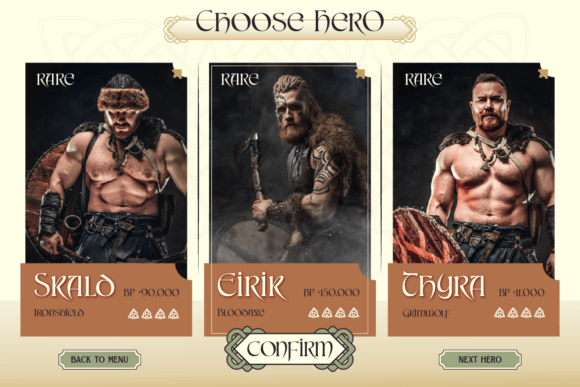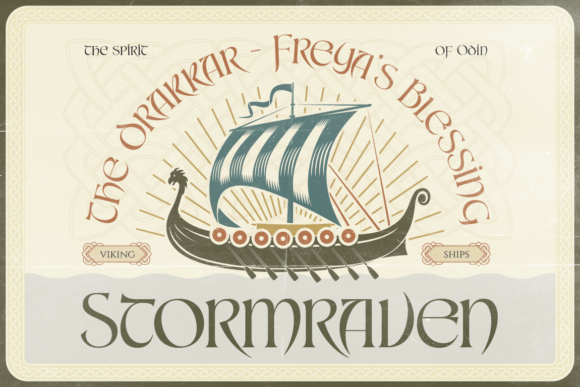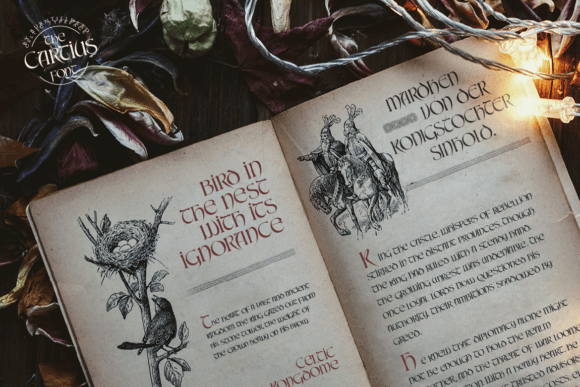
Unleashing the Fierce Elegance of Ancient Norse Culture: A Deep Dive into Cartius Font
I’ll never forget the design moment that led me to discover Cartius Font. I was working on a project that required a unique and timeless look, with a hint of historical elegance and a touch of Viking spirit. I had spent hours scouring the internet for the perfect font, but nothing seemed to fit the bill. That was until I stumbled upon Cartius Font, and it instantly transported me to the world of ancient Norse culture and traditional Celtic art.
The Birth of a Legendary Font
Cartius Font is inspired by ancient manuscripts, sacred text, and traditional Celtic art. The style emerged around the 6th to 7th centuries, and inhabited regions like Ireland, Scotland, and Britain. This font is a proud representation of the fierce elegance of ancient Norse culture, with bold, intricate strokes that echo the strength of Viking tradition.
A Personal Review of Cartius Font
So, what do I love about Cartius Font? Here are a few things that make it stand out:
- ✨ Elegant and refined design: Cartius Font boasts a unique and captivating style that adds a touch of historical elegance to any project.
- ✅ Highly versatile: This font is perfect for a wide range of projects, from medieval designs to fantasy themes.
- 🔥 Instantly recognizable: Cartius Font has a distinct style that instantly conveys the spirit of the Celtic world.
Of course, no font is perfect, and Cartius Font has a few small quirks:
- 🤔 Limited use of lowercase letters: Cartius Font is primarily designed for use with uppercase letters, which may limit its use in certain projects.
- ⚠️ Requires careful kerning: As with any font with intricate strokes, kerning can be a bit tricky with Cartius Font.
The Designer Inspiration Behind Cartius Font
The designer behind Cartius Font was inspired by the rich cultural heritage of ancient Norse culture and traditional Celtic art. The font is a proud representation of the fierce elegance and strength of Viking tradition.
| Font Name | Cartius Font |
| Author | Burntilldead |
| What is Cartius Font inspired by? | Cartius Font is inspired by ancient manuscripts, sacred text, and traditional Celtic art. |
| What type of projects is Cartius Font best suited for? | Cartius Font is perfect for projects that require a unique and timeless look, such as medieval designs, fantasy themes, and historical elegances. |